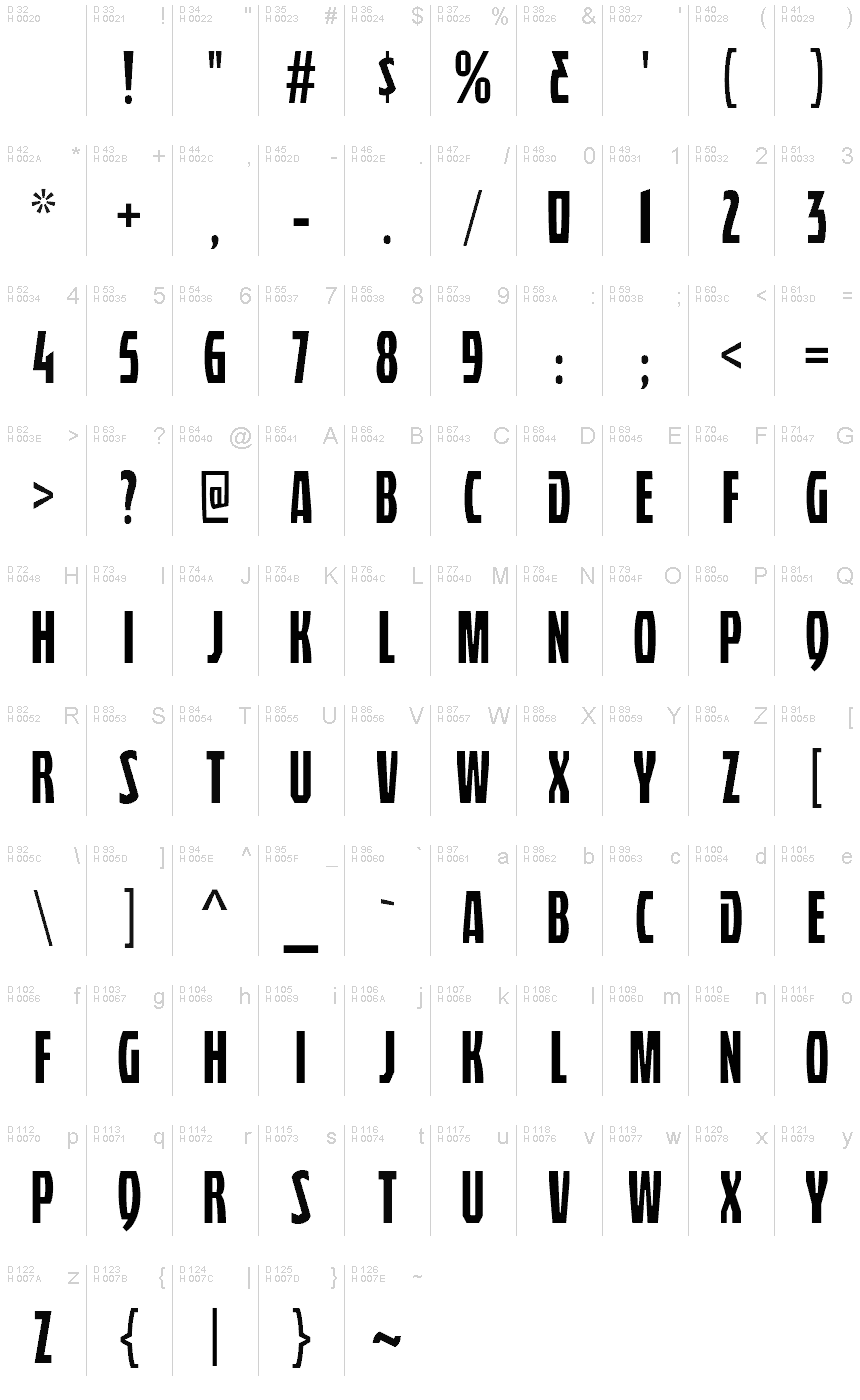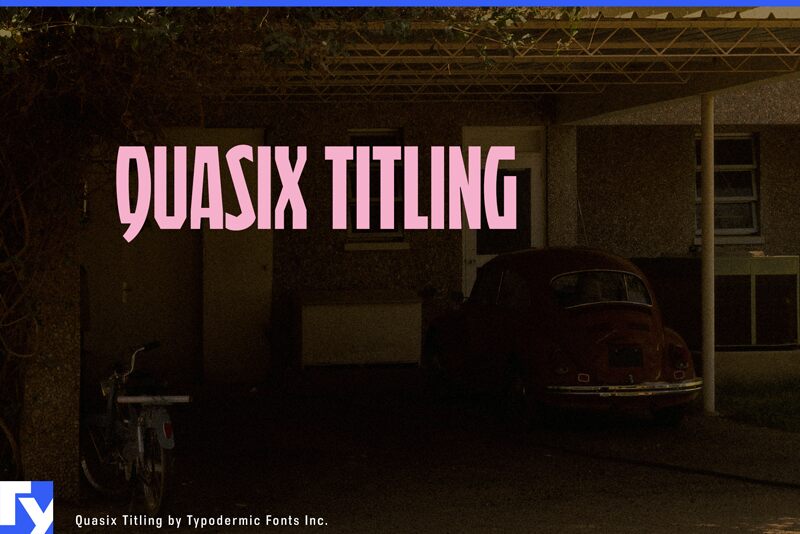
Quasix is a compact, industrial headliner. Like the inside of a machine, it appears functional, even though the specific purpose of each individual part may not be understood by the viewer. Often, a designer needs to convey the idea of engineered devices without resorting to a stereotypical techno typeface or something more concrete like gears and bolts. Unlike many display fonts in the industrial category, Quasix isn't tied to any particular era, making it suitable for retro, contemporary or futuristic themes. If you'd like lowercase letter, check out the regular Quasix font.